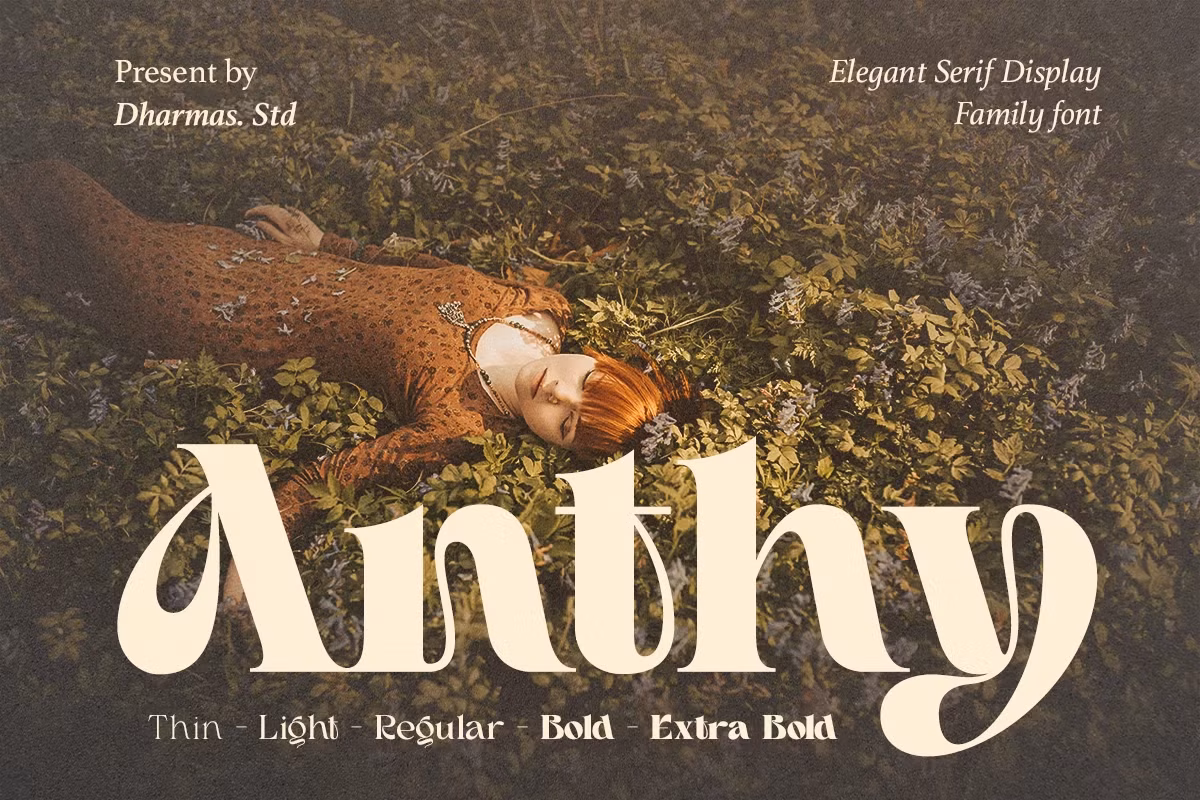
You must purchase this font for commercial use. However, you can download Anthy Font – 5 Display Family Free Download for testing purposes. Anthy is a bold and versatile display typeface family featuring five distinct styles that range from clean and minimal to expressive and artistic. Designed for high-impact visual communication, Anthy is perfect for posters, branding, album covers, fashion editorials, and website headers where strong typography is key. Each style in the Anthy Font family complements the others, offering designers flexibility to mix and match across creative projects.
Whether you're looking for a sharp modern look or a touch of vintage flair, Anthy delivers with beautifully crafted letterforms, strong presence, and professional polish. The multiple styles allow you to maintain visual consistency across various design elements while adding variety and depth. Anthy Font – 5 Display Family Free Download is your chance to test out this powerful font family in action. Don’t forget to secure the proper commercial license for business or client use. Download Anthy Font – 5 Display Family Free Download today and unlock creative potential with every letter.